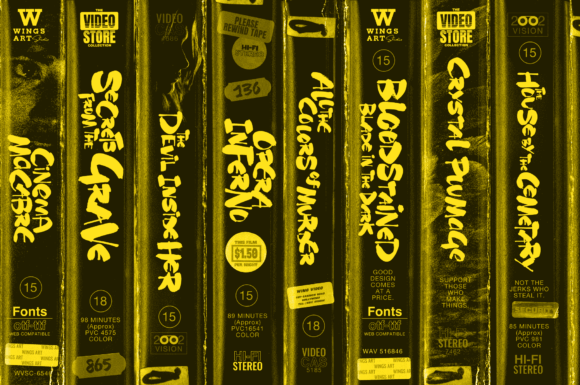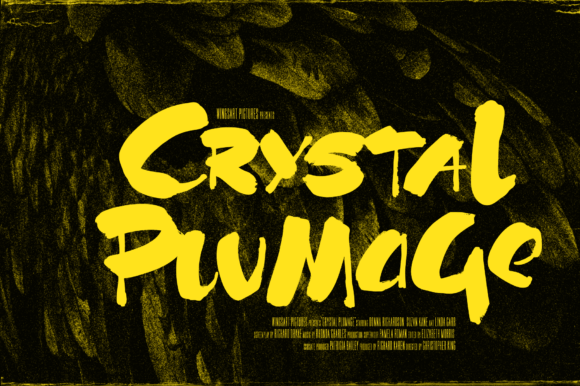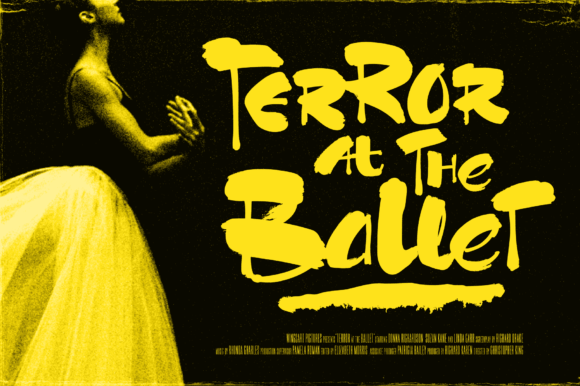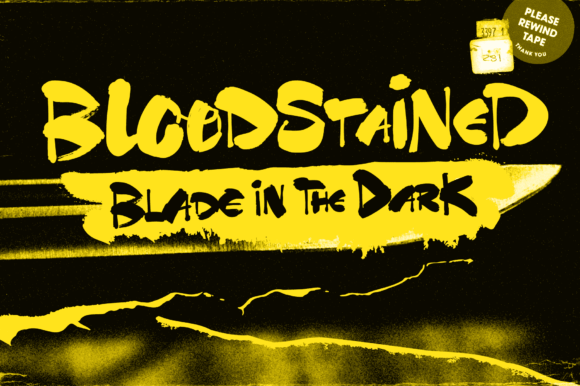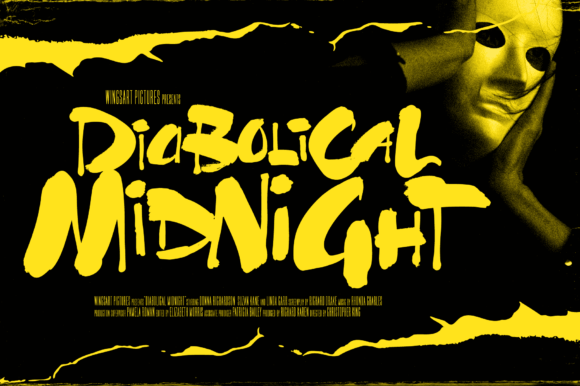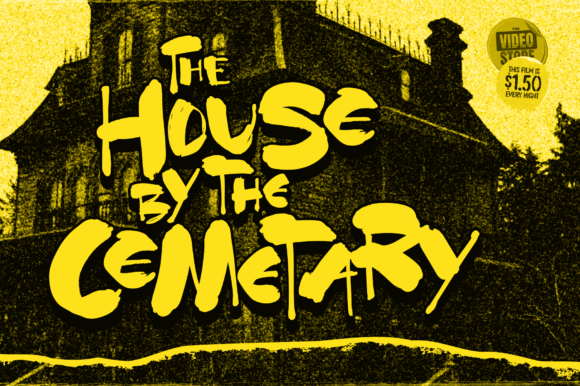
Cinema Macabre Font: A Hauntingly Beautiful Tribute to Giallo Film Posters
Are you a designer or crafter looking for a font that captures the essence of vintage horror and exploitation cinema? Look no further than the Cinema Macabre Font, a loose and inky brush display font inspired by the classic Giallo film posters of the 1960s to 1980s. This devilishly drawn design is perfect for those who want to add a touch of macabre elegance to their digital designs.
The Inspiration Behind Cinema Macabre Font
The Cinema Macabre Font takes its cue from the stylish visuals of Giallo film posters, a cult cinematic subgenre that originated in Italy in the 1960s. Characterized by its haunting soundtracks, stylish visuals, and exploitation-led marketing, Giallo cinema has become a beloved favorite among film enthusiasts. The font’s design aims to capture the feeling of vintage horror, preserving the analog details of old print while remaining versatile enough to work across a variety of digital designs.
A Font that Embodies the Spirit of Vintage Horror
Cinema Macabre Font is more than just a font – it’s an experience. Its loose and inky brush strokes evoke the feeling of hand-painted posters, while its bold and expressive letters seem to leap off the screen. Whether you’re designing a horror movie poster, a creepy invitation, or a haunted-themed craft project, this font is sure to add a touch of macabre magic to your work.
Key Features of Cinema Macabre Font
- Loose and inky brush strokes: Giving the font a hand-painted, vintage feel that’s perfect for horror and exploitation-themed designs.
- Inspired by Giallo film posters: Capturing the essence of a cult cinematic subgenre beloved for its stylish visuals and haunting soundtracks.
- Devilishly drawn design: With bold and expressive letters that seem to leap off the screen.
- Versatile and adaptable: Suitable for a variety of digital designs, from horror movie posters to creepy invitations and haunted-themed craft projects.
Uses for Cinema Macabre Font
Cinema Macabre Font is perfect for designers and crafters who want to add a touch of vintage horror to their work. Here are some ideas to get you started:
- Horror movie posters: Create eye-catching posters for your favorite horror movies, or use the font to design a poster for your own horror film.
- Creepy invitations: Design invitations for horror-themed parties, haunted houses, or creepy craft workshops.
- Haunted-themed craft projects: Use the font to create titles, headings, or quotes for craft projects, such as haunted dolls, creepy jewelry, or macabre home decor.
- Digital art and illustrations: Add a touch of vintage horror to your digital art and illustrations, or use the font to create creepy text overlays.
Cinema Macabre Font is a unique and captivating font that’s perfect for designers and crafters who want to add a touch of vintage horror to their work. With its loose and inky brush strokes, bold and expressive letters, and inspiration from Giallo film posters, this font is sure to become a favorite among horror enthusiasts and designers alike. So why wait? Download Cinema Macabre Font today and start creating your own hauntingly beautiful designs!